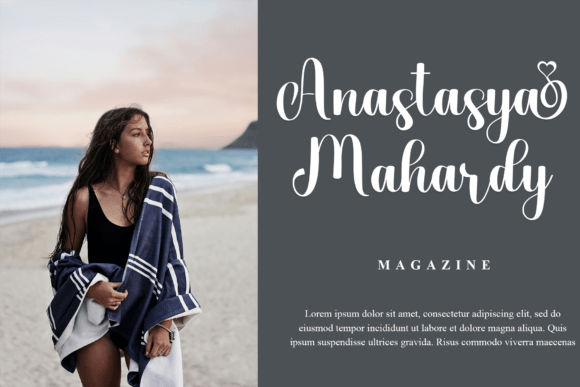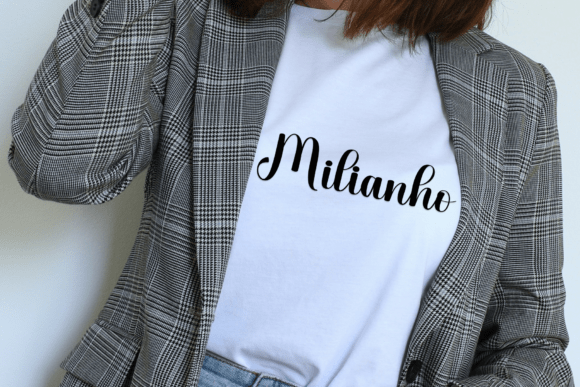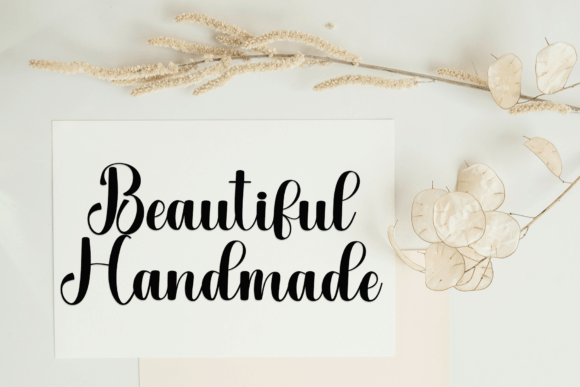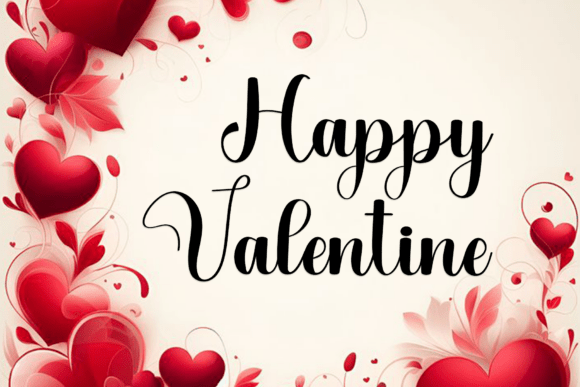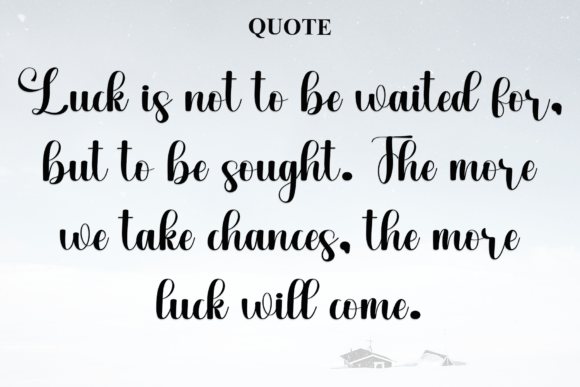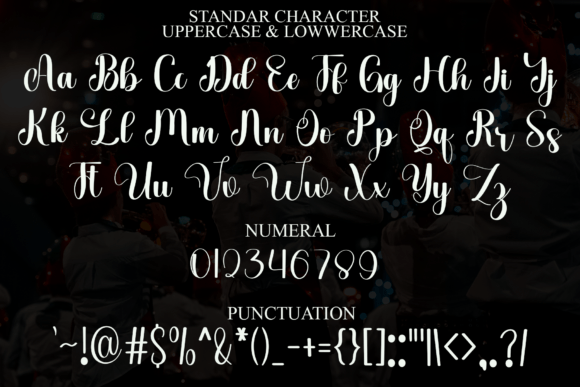
Introducing Amelia Font: The Festive and Merry Typeface for Your Holiday Designs
Are you looking for a font that captures the essence of the holiday season? Do you want to add a touch of magic to your designs, greeting cards, and gift tags? Look no further than Amelia Font, a festive and merry typeface that brings a cheerful and nostalgic ambiance to your words.
The Spirit of the Holiday Season in a Font
Amelia Font is a decorative typeface that embodies the spirit of the holiday season. Its whimsical flair and enchanting elements make it perfect for holiday-themed projects, greeting cards, and gift tags. With Amelia Font, you can add a touch of wonder and excitement to your designs, making them truly special and memorable.
Key Features of Amelia Font
- Decorative Elements: Amelia Font features decorative elements that add a festive touch to your designs. From snowflakes to holly leaves, each glyph is carefully crafted to bring the magic of the holiday season to your typography.
- Whimsical Flair: This font has a playful and whimsical flair that makes it perfect for holiday-themed projects. Whether you’re designing a greeting card or a gift tag, Amelia Font adds a touch of enchantment to your words.
- PUA Encoded: Amelia Font is PUA encoded, which means you can access all of the amazing glyphs and ligatures with ease. This makes it easy to use the font in your designs, even if you’re not a typography expert.
Amelia Font is perfect for designers and crafters who want to add a touch of magic to their holiday designs. Whether you’re creating greeting cards, gift tags, or holiday-themed projects, this font brings a cheerful and nostalgic ambiance to your words.
Use Amelia Font for:
- Greeting Cards: Create festive and merry greeting cards for the holiday season with Amelia Font.
- Gift Tags: Add a touch of enchantment to your gift tags with this whimsical font.
- Holiday-Themed Projects: Use Amelia Font to create holiday-themed projects, such as Christmas decorations, Halloween party invitations, or Thanksgiving-themed designs.
Tips for Using Amelia Font
- Experiment with Different Sizes: Try using Amelia Font in different sizes to create a unique and eye-catching design.
- Combine with Other Fonts: Combine Amelia Font with other fonts to create a unique and interesting typography.
- Use the Glyphs and Ligatures: Take advantage of the PUA encoding and use the glyphs and ligatures to add a touch of magic to your designs.
Amelia Font is a festive and merry typeface that captures the spirit of the holiday season. With its decorative elements and whimsical flair, it adds a touch of enchantment to your designs. Perfect for greeting cards, gift tags, and holiday-themed projects, this font brings a cheerful and nostalgic ambiance to your words. Let your typography shine with the magic of Amelia Font!